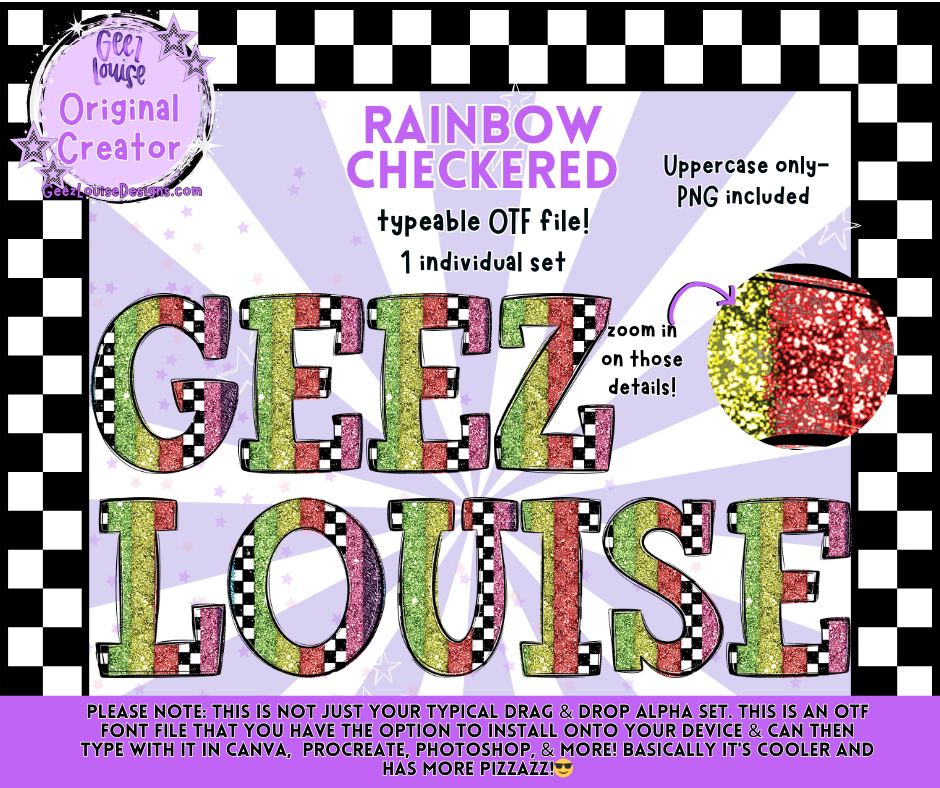
RAINBOW CHECKERED — Typeable OTF Alpha Font + PNGs
Turn up the color and the sparkle with Rainbow Checkered, a bold, glitter‑kissed alpha font that brings instant joy to any design. With its vibrant rainbow palette and textured checkered pattern, this typeable OTF file makes it effortless to create high‑impact lettering for apparel, stickers, planners, and digital products.
Uppercase A–Z
Rainbow glitter checkered textures
Crisp, clean, print‑ready details